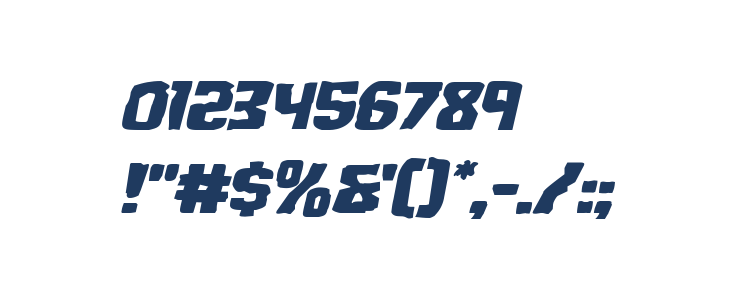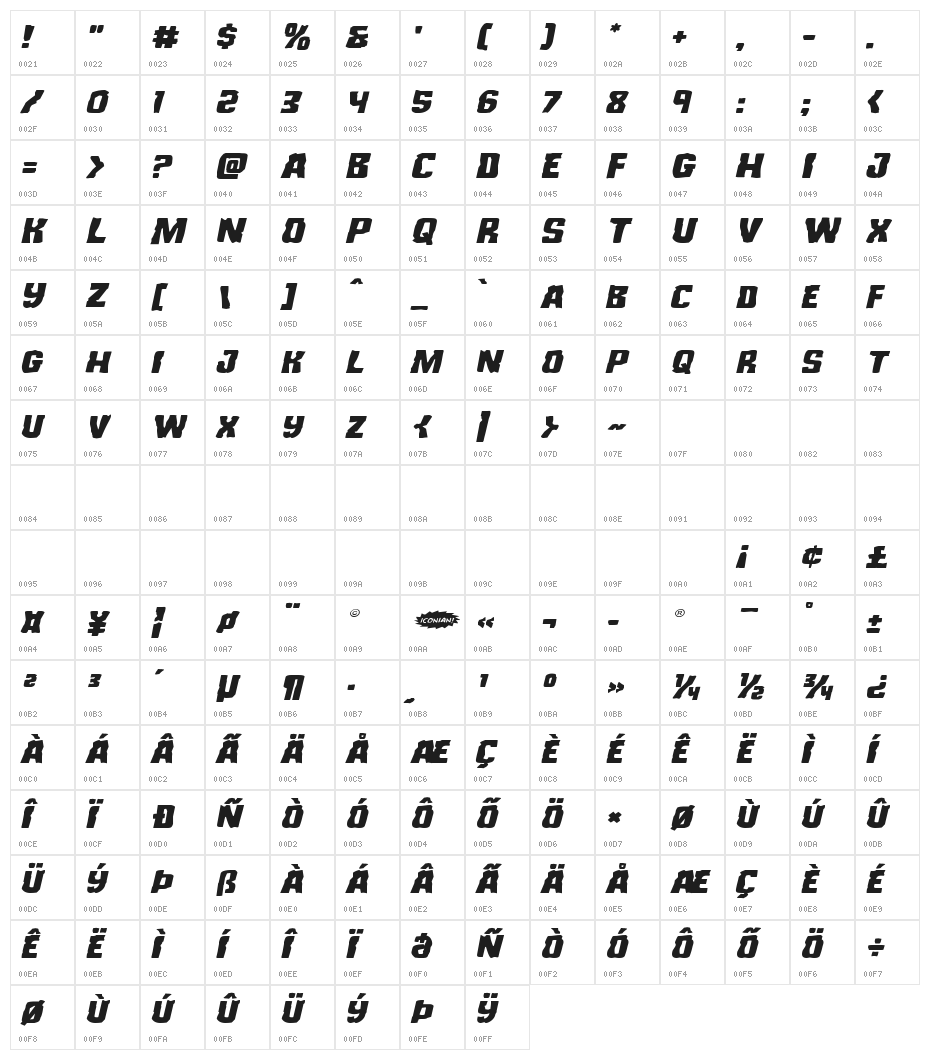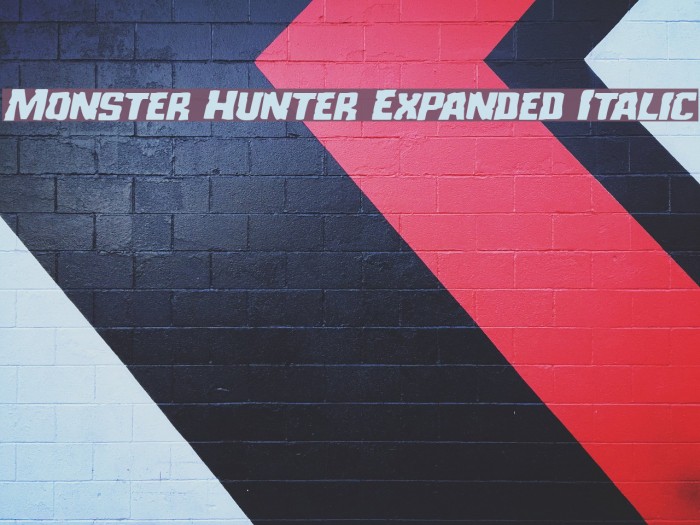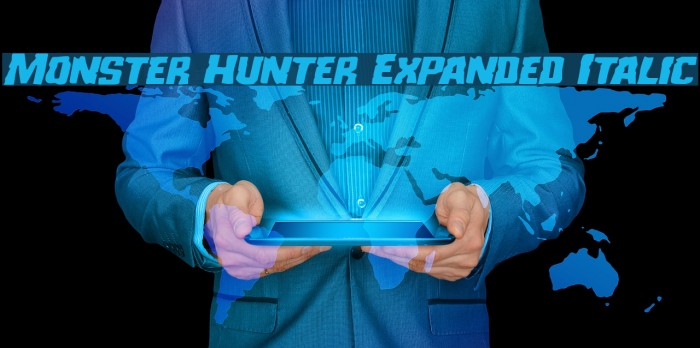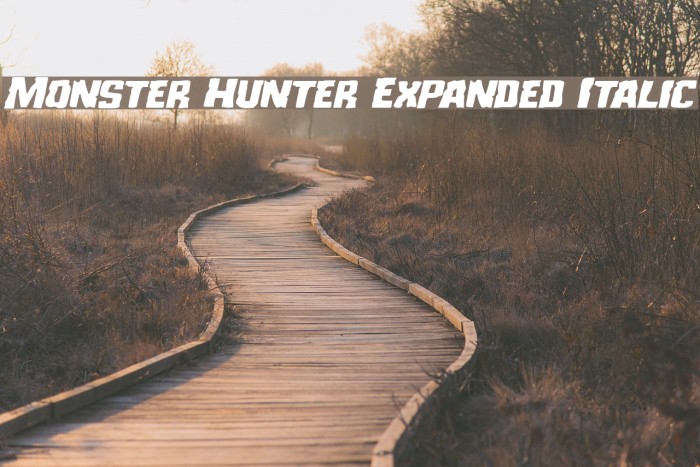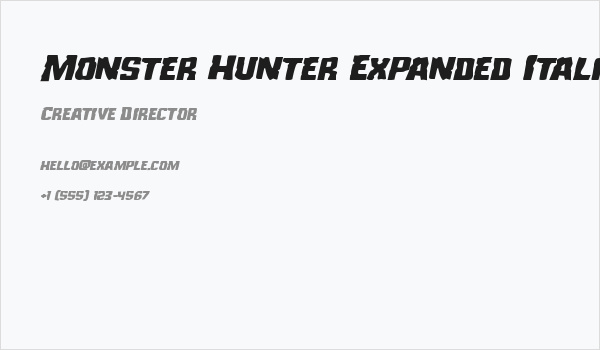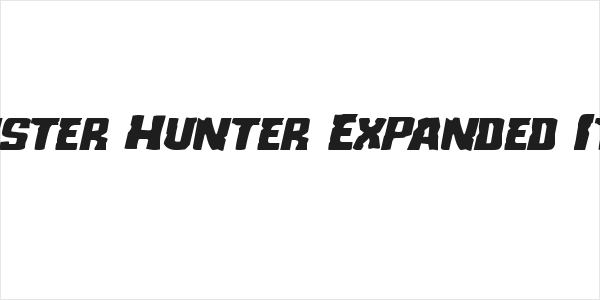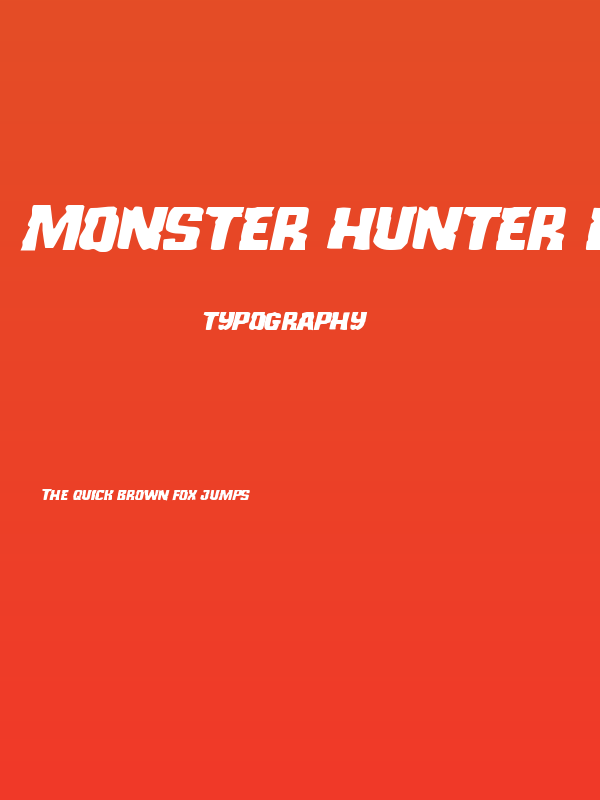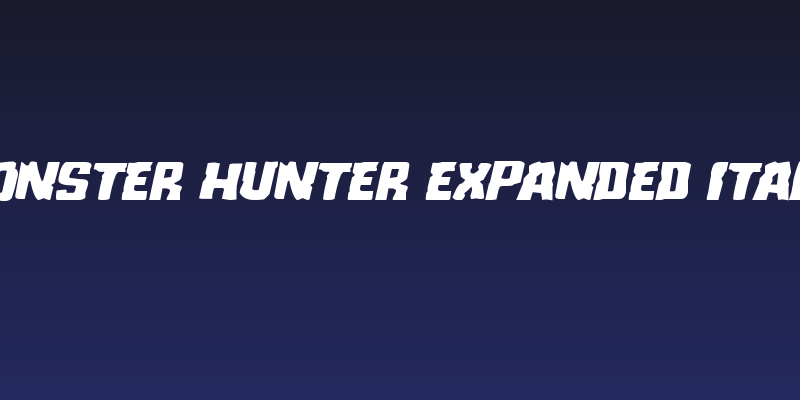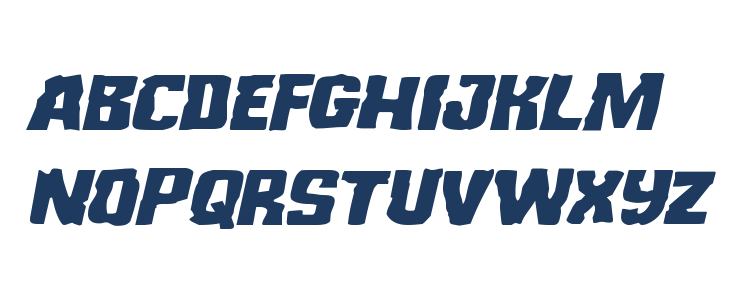
Monster Hunter Expanded Italic Font
Monster Hunter Expanded Italic Description
This font features a bold, dynamic style with a strong presence. The characters are designed with sharp, angular edges and a slightly italicized slant, giving them a sense of motion and energy. The expanded width of the letters enhances their impact, making them suitable for attention-grabbing headlines or titles. The font maintains a consistent weight throughout, providing a uniform appearance across all characters. The numbers and special characters are crafted with the same boldness and angular design, ensuring a cohesive look. This font is ideal for projects that require a modern, edgy aesthetic.
| Proposed Projects | Ideal for video game titles, movie posters, sports branding, and dynamic advertising campaigns. |